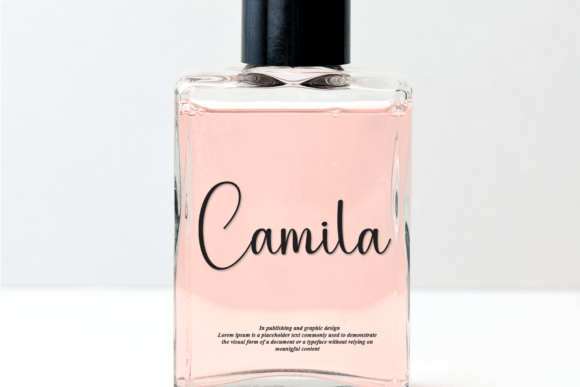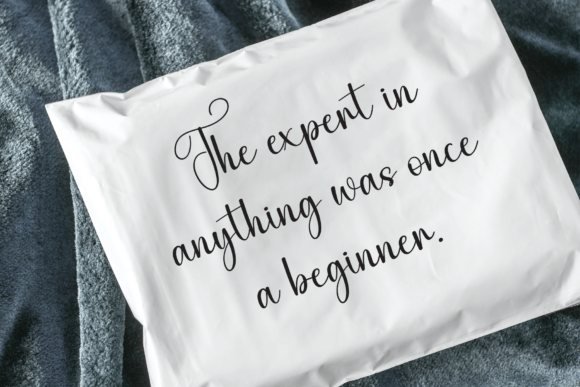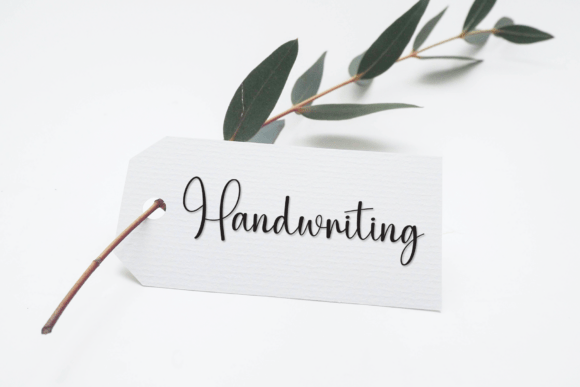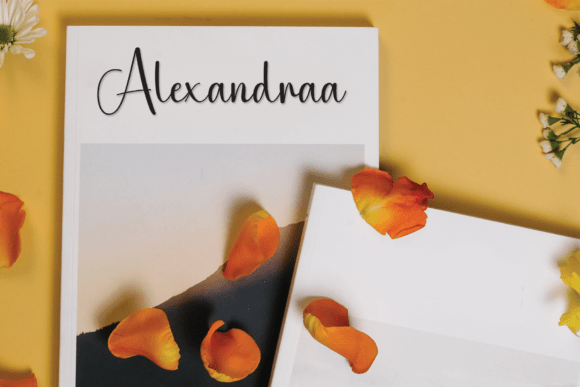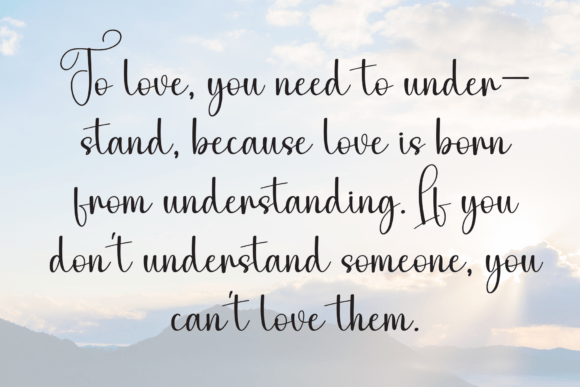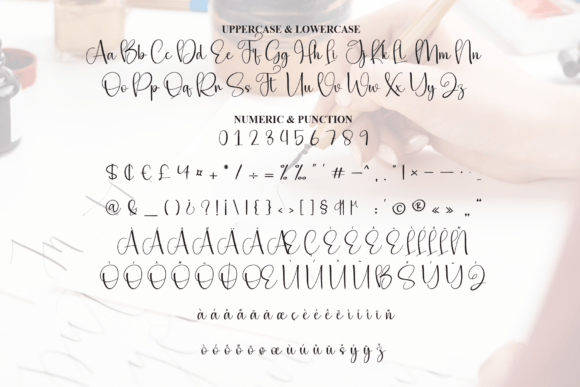
The Autography Font: A Creative Game-Changer for Designers and Crafters
Have you ever been in the middle of a design project, pouring your heart and soul into it, only to hit a roadblock when it comes to finding the perfect font? I certainly have. It was during one of those moments, working on a wedding invitation design, that I stumbled upon the Autography Font. And let me tell you, it’s been a game-changer ever since.
What Makes Autography Font So Special?
The Autography Font is a special creative product designed to give you an extraordinary experience. With its latest style letters, it’s perfect for a variety of projects, including wall displays, wedding invitations, social media post logos, advertisements, product packaging, product designs, labels, photography, watermarks, invitations, stationery, and any project that requires tasteful handwriting.
• ✨ Versatility: This font can be used for a wide range of projects, from digital to print.
• 💫 Beautifully Crafted: The font has a unique, hand-crafted feel that adds a personal touch to any project.
• 🤔 Learning Curve: While the font is easy to use, it may take some time to get familiar with all the features and glyphs.
• ⚠️ Not Suitable for All Projects: While the font is versatile, it may not be the best fit for very formal or traditional projects.
The Designer Inspiration Behind Autography Font
The Autography Font was created with the goal of providing a unique, hand-crafted feel to designers and crafters. The designer behind this font is passionate about creating high-quality, versatile fonts that can be used in a variety of projects. With a keen eye for detail and a deep understanding of typography, the designer has crafted a font that is both beautiful and functional.